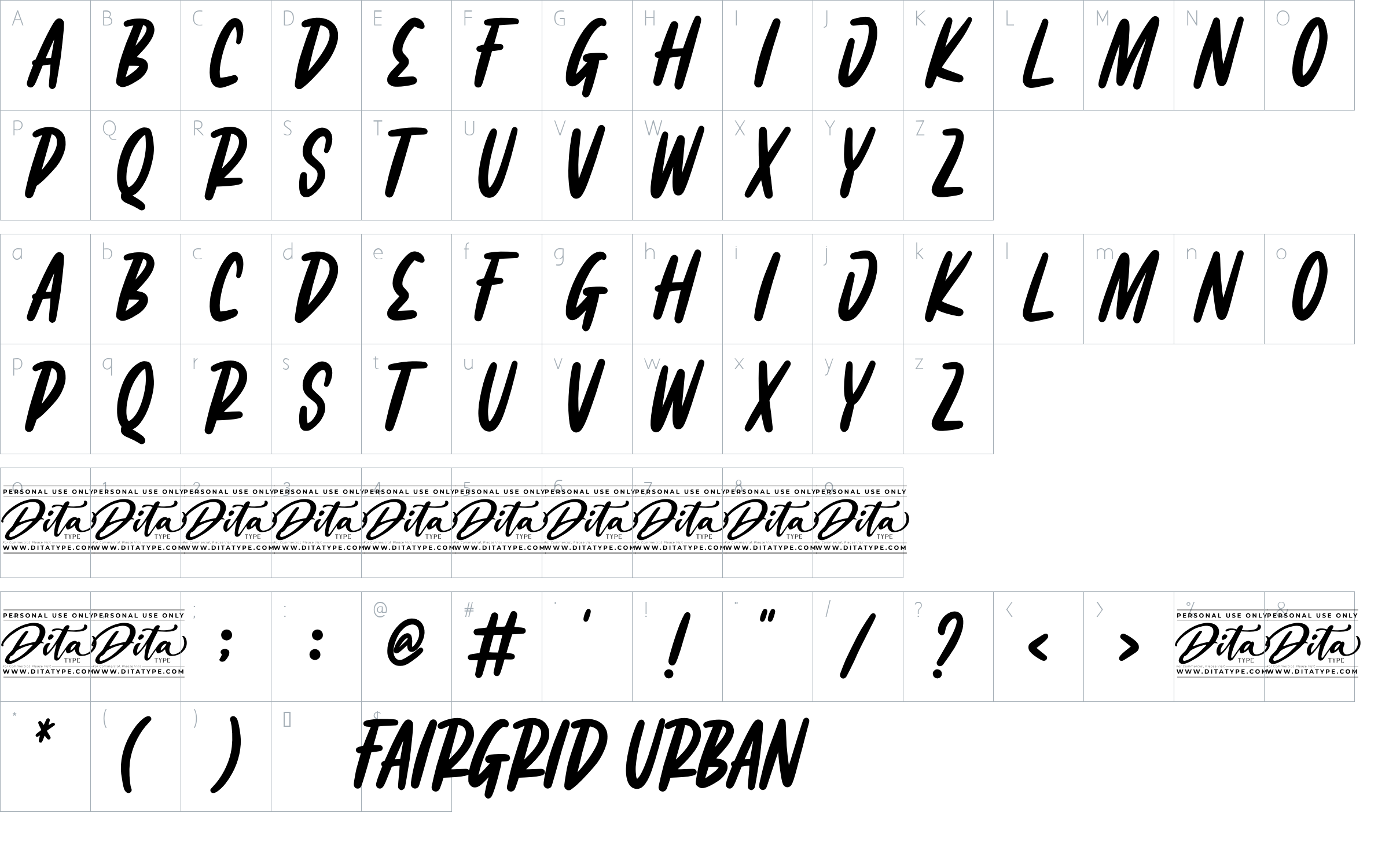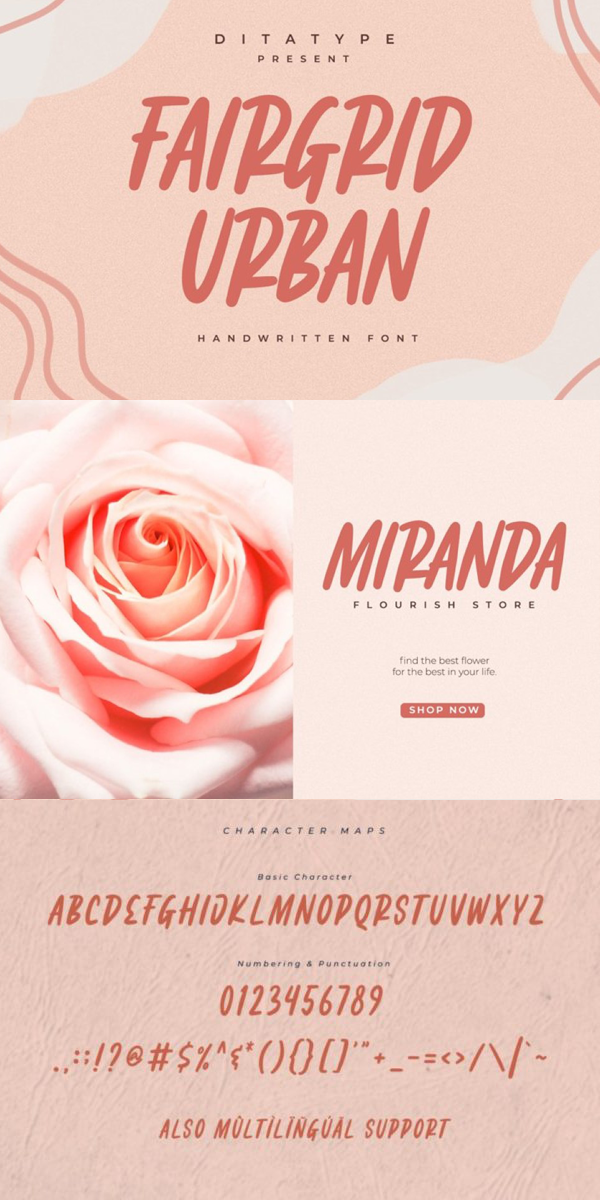
Fairgrid Urban Font
About Fairgrid Urban
Fairgrid Urban is a modern handwritten font. With a classy and natural handwritten style, it brings a classy and chic typeface. Fairgrid Urban is best used for weddings, branding, logotype, and quotes.
– Beautiful Ligatures